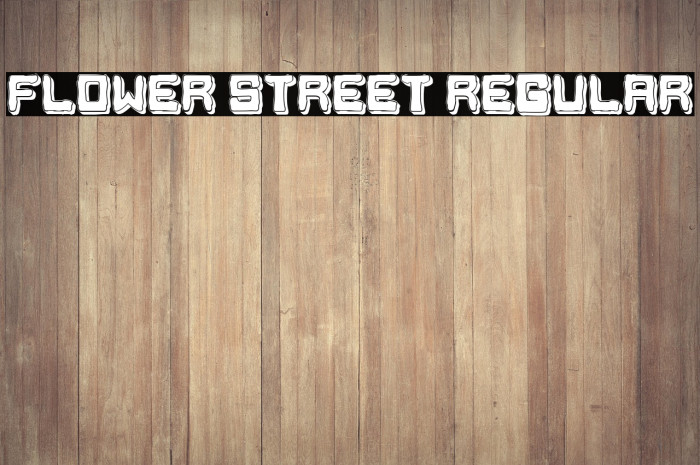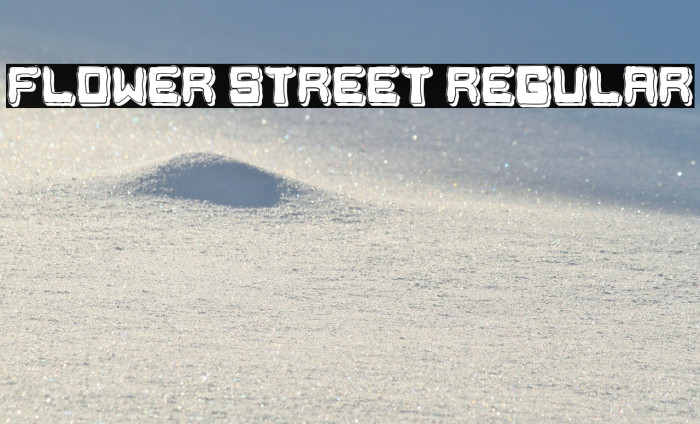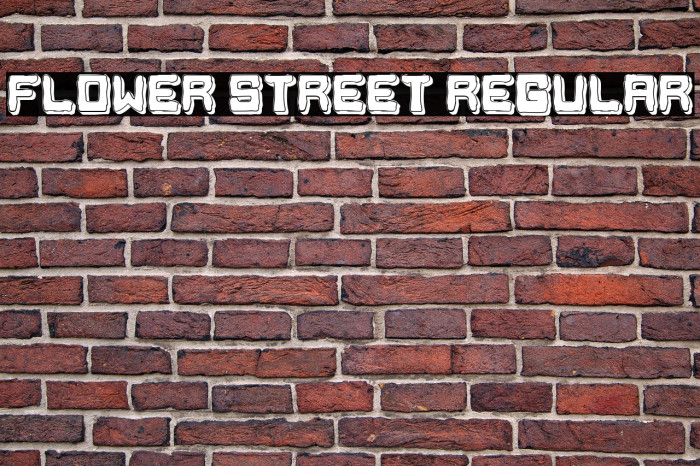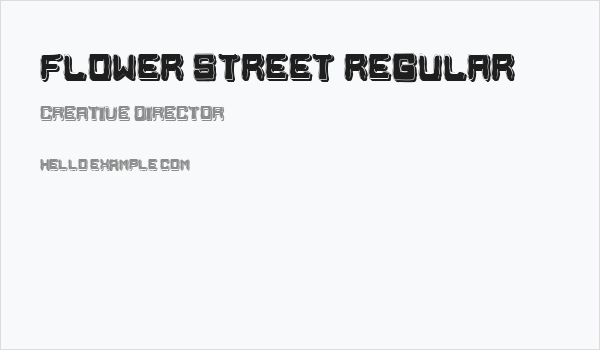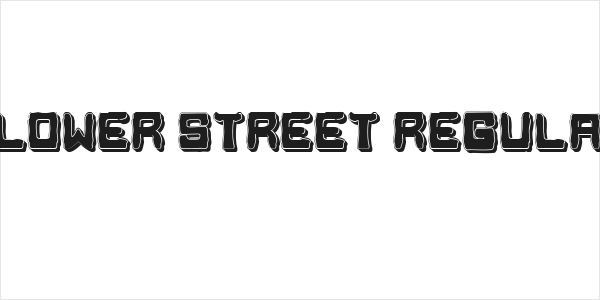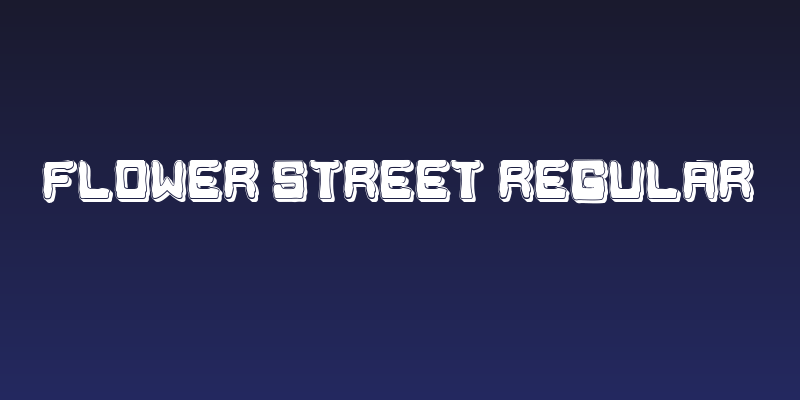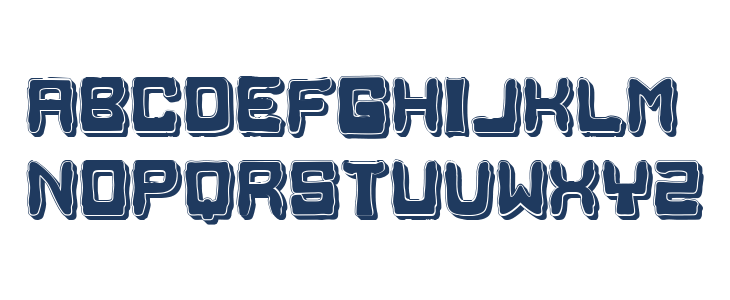
Flower Street Regular Font
Flower Street Regular Description
This font features a bold and striking design with a three-dimensional effect that gives each character a sense of depth. The letters are outlined with a thick, shadow-like border that enhances their visual impact. The style is reminiscent of street art or graffiti, with a modern twist that makes it suitable for contemporary designs. The uppercase and lowercase letters maintain a consistent style, with rounded edges and a slightly condensed form. The numbers and special characters follow the same aesthetic, ensuring a cohesive look across all text elements.
| Proposed Projects | Ideal for posters, album covers, urban-themed branding, and event flyers. |